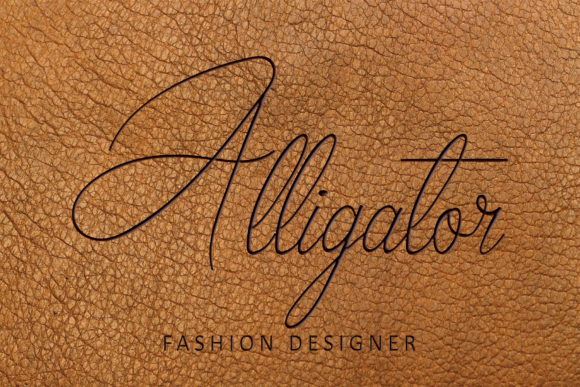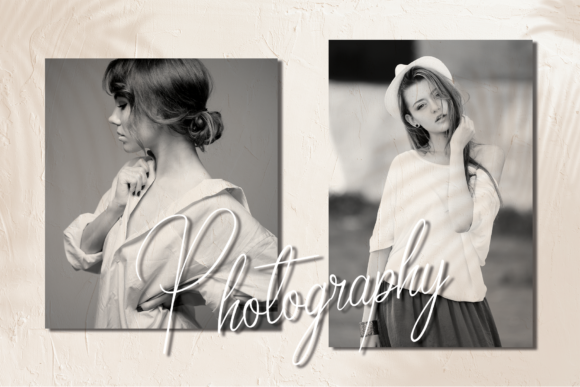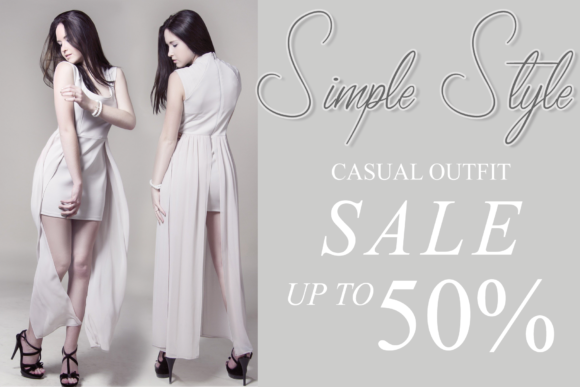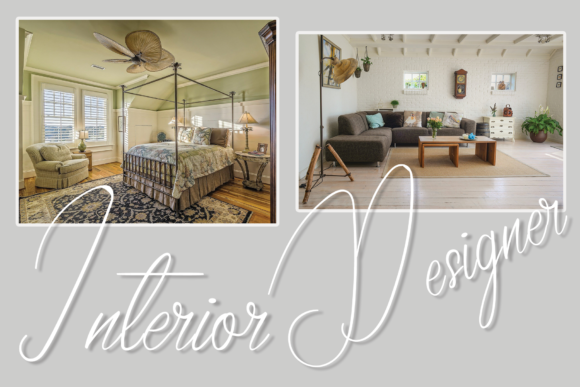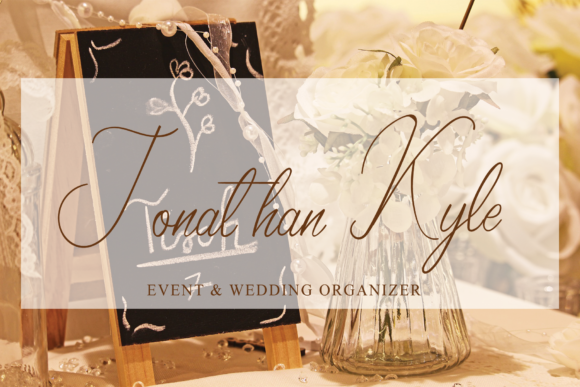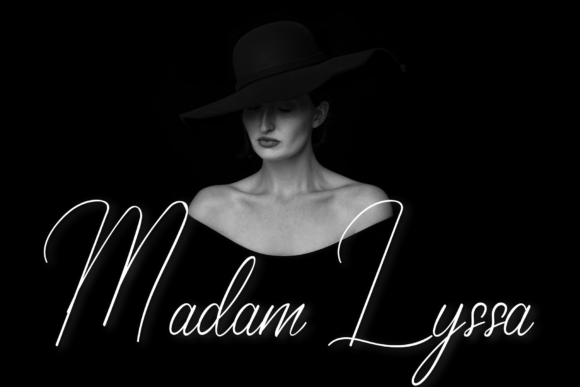
Introduction to Rustic Style Font
Rustic Style is a thin and elegant handwritten font.
Use this font for your designs and explore its endless possibilities .
Key Features of Rustic Style Font
Why Choose Rustic Style Font?
Rustic Style Font offers exceptional quality and versatility, making it a valuable addition to your design toolkit. Whether you’re creating for personal projects or commercial use, Rustic Style Font delivers professional results.